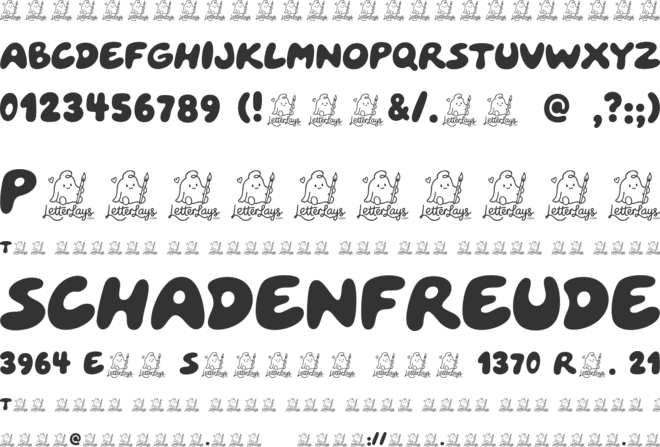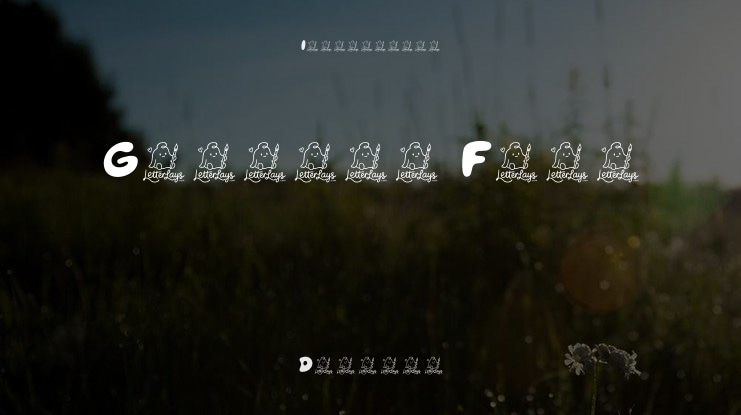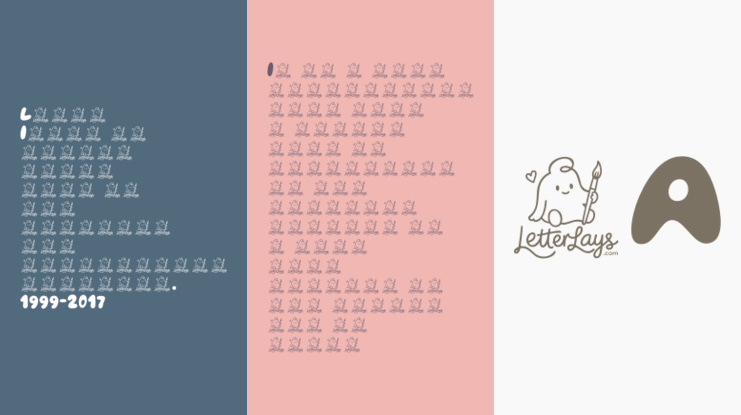
Glooply Free Font
✦ Glooply Free is a limited personal-use demo of the full Glooply typeface by Letterlays. Create kids branding, toy packaging, soft product labels, nursery posters, and expressive display graphics with Glooply.
🎨 Style notes: ✨ Glooply is a puffy organic display font with soft blob shapes, squishy tactile rhythm, and gentle playful warmth.
🔤 This demo includes uppercase Latin letters, numerals and selected basic punctuation for personal mockups, layout tests and concept work.